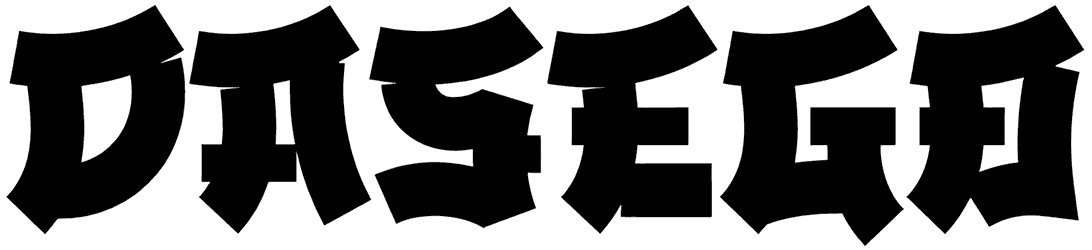
Dasego Font
Far from reality to be capable of keeping your efforts to a minimum with enchanted outcomes in less than 2 minutes, but accept it or not, it’s what occurs with this remarkable Dasego font in your hands!
Every design, logo, or ad will turn into a stunning one with a single click. Ready to blow the minds of your followers with remarkable results? Although this Japanese font leaves out lowercase, be sure it works impeccably for fitting the bill of all themes.